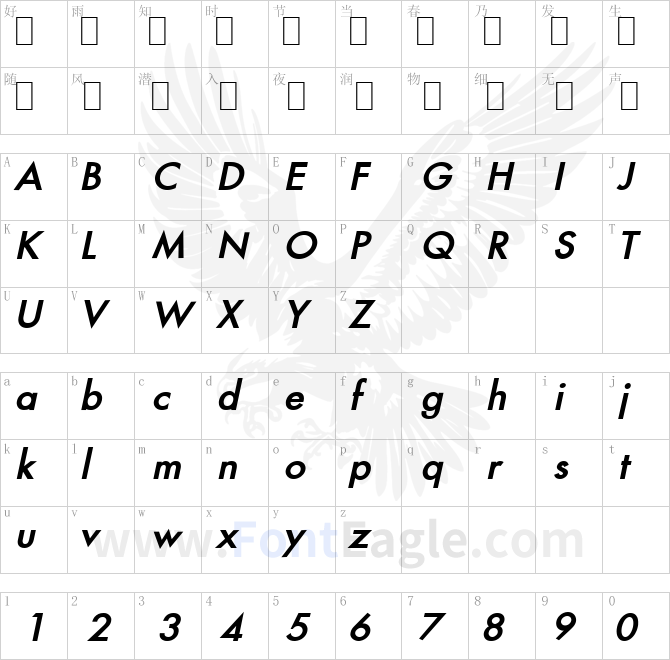
Fusi-Bold-Italic is a great font, widely used in graphic design, single-page menu design, poster design and other fields, and is deeply loved by designers.Fusi-Bold-Italic download.